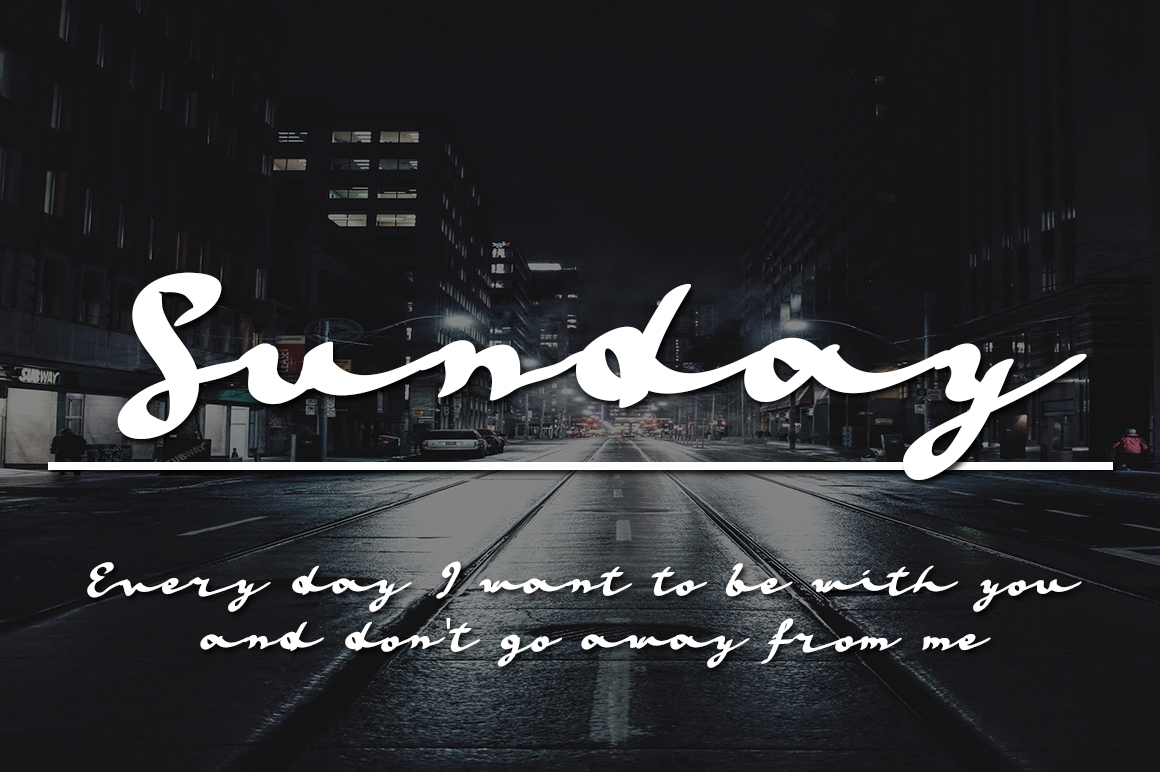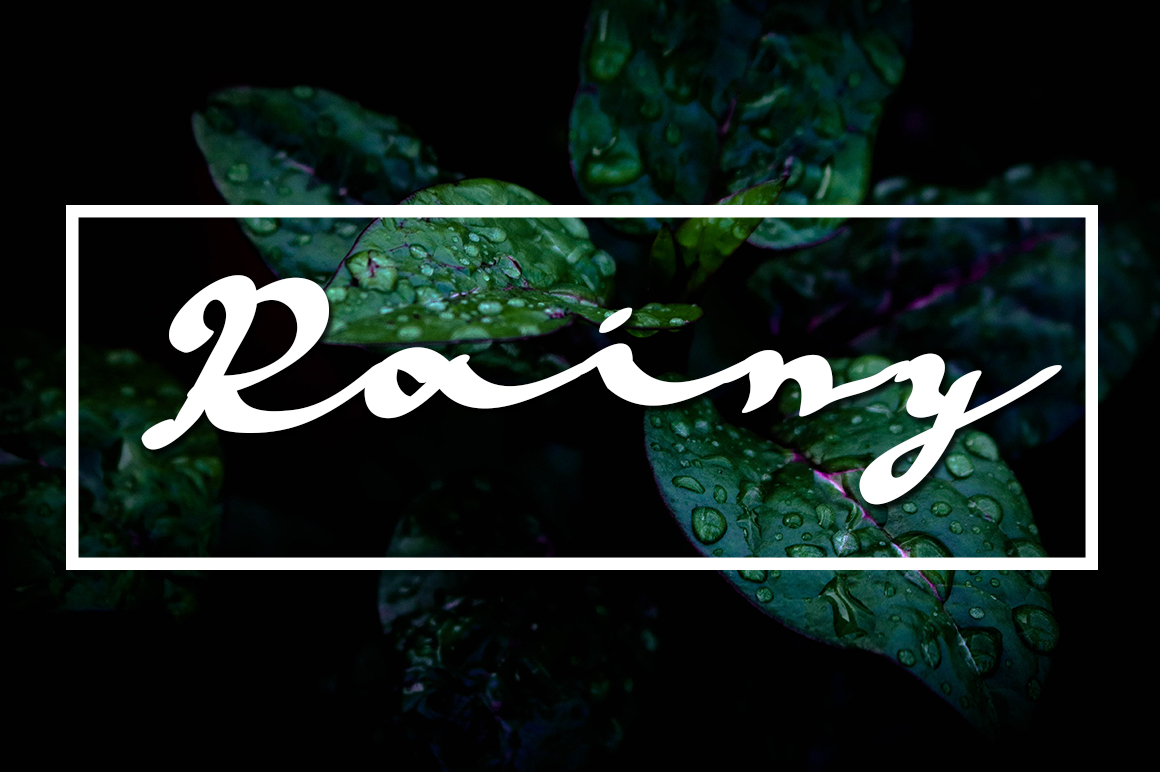
March Font
March Script Font
It’s an exquisite handwritten font, masterfully designed to become a true favorite. It maintains its classy calligraphic influences while feeling contemporary and fresh. Fall in love with it and bring your projects to the highest levels!